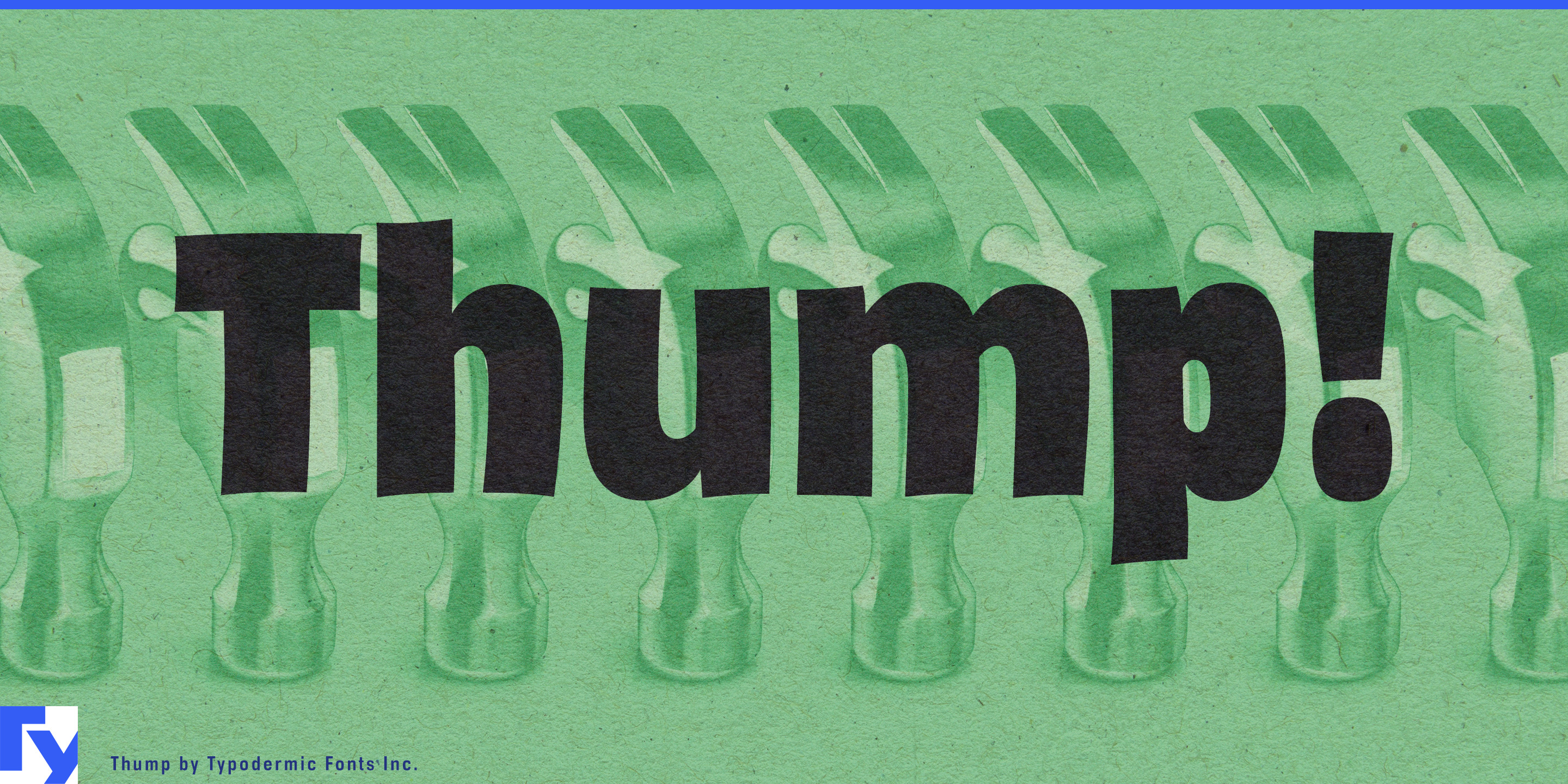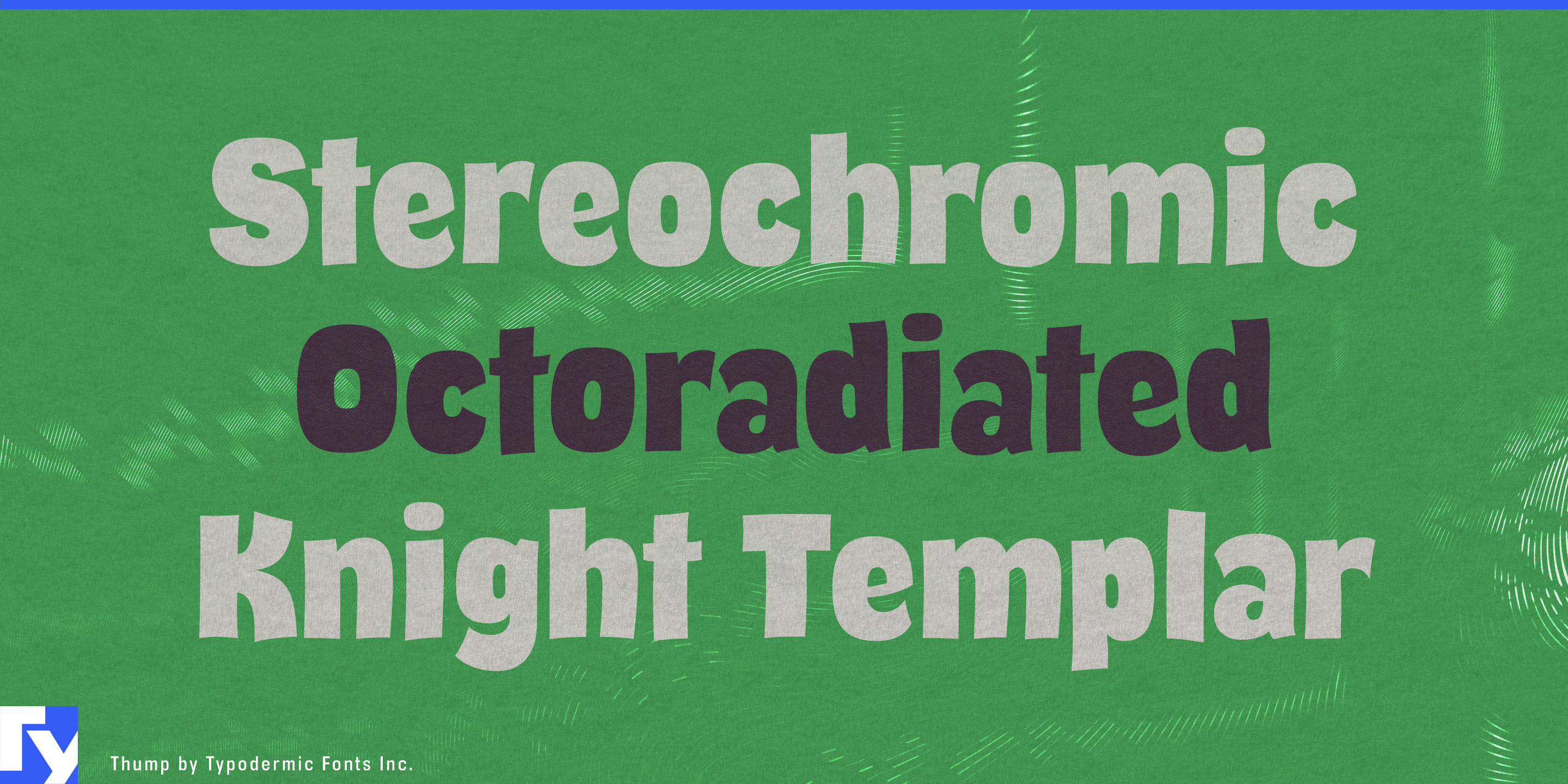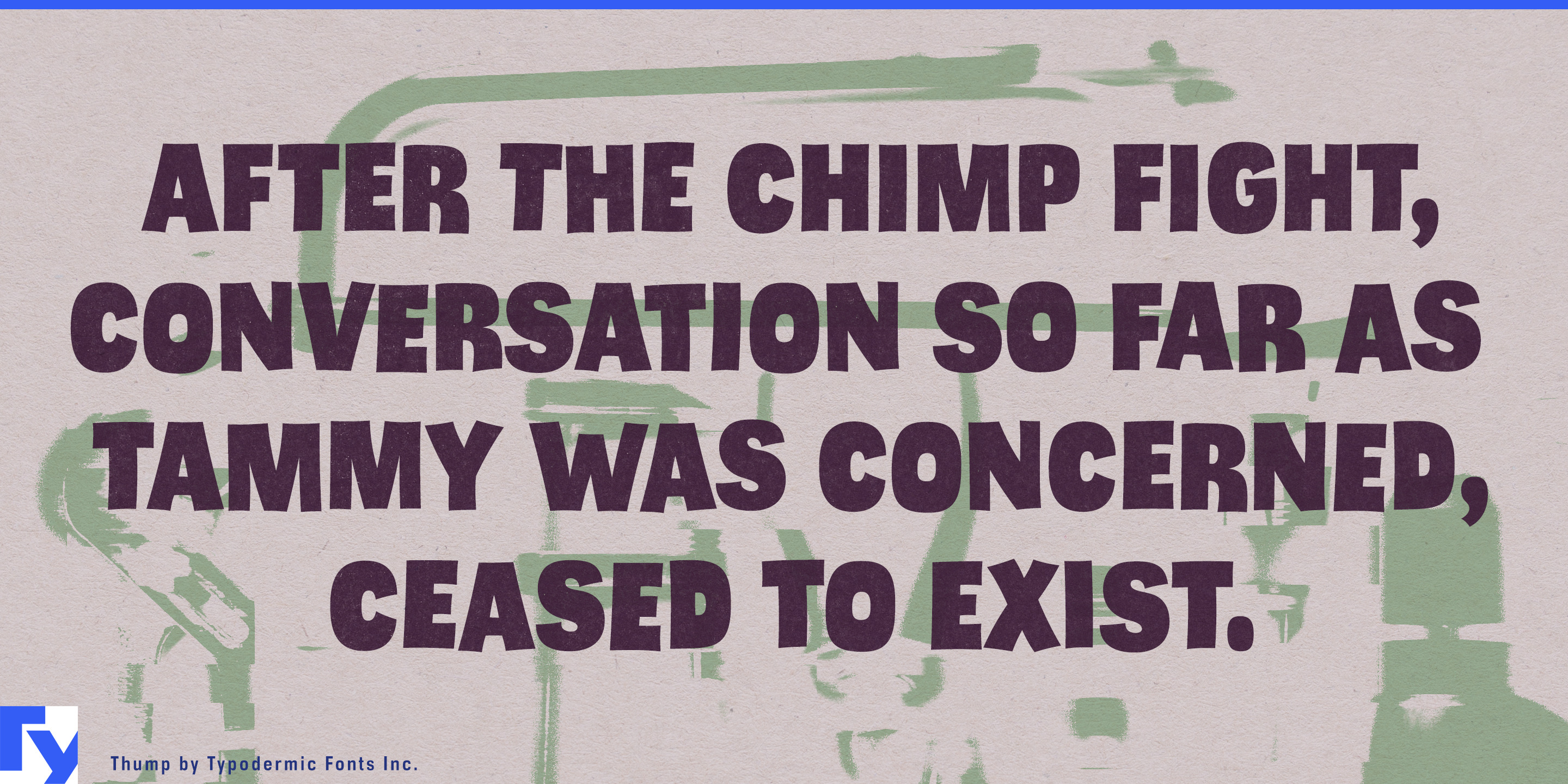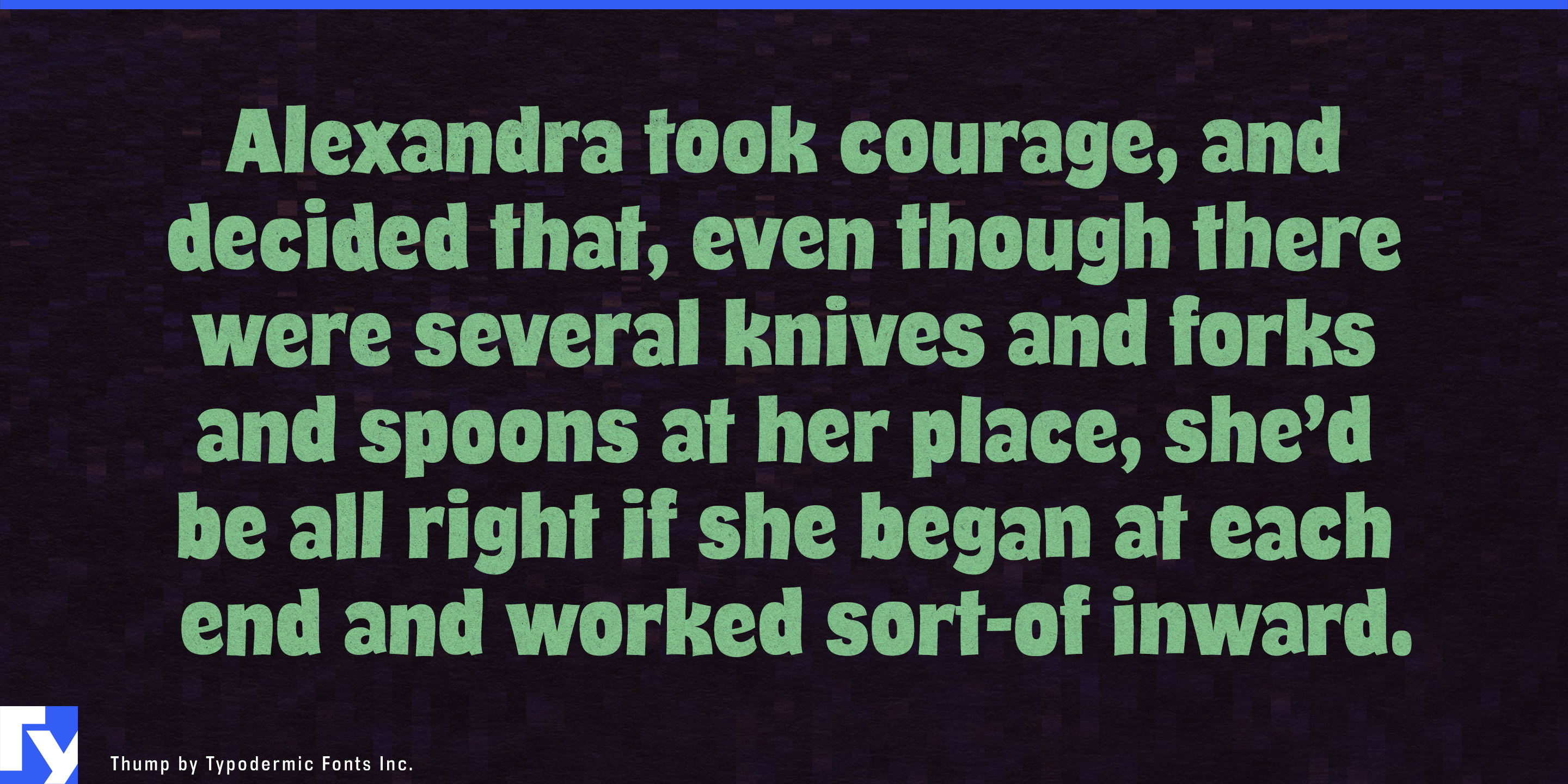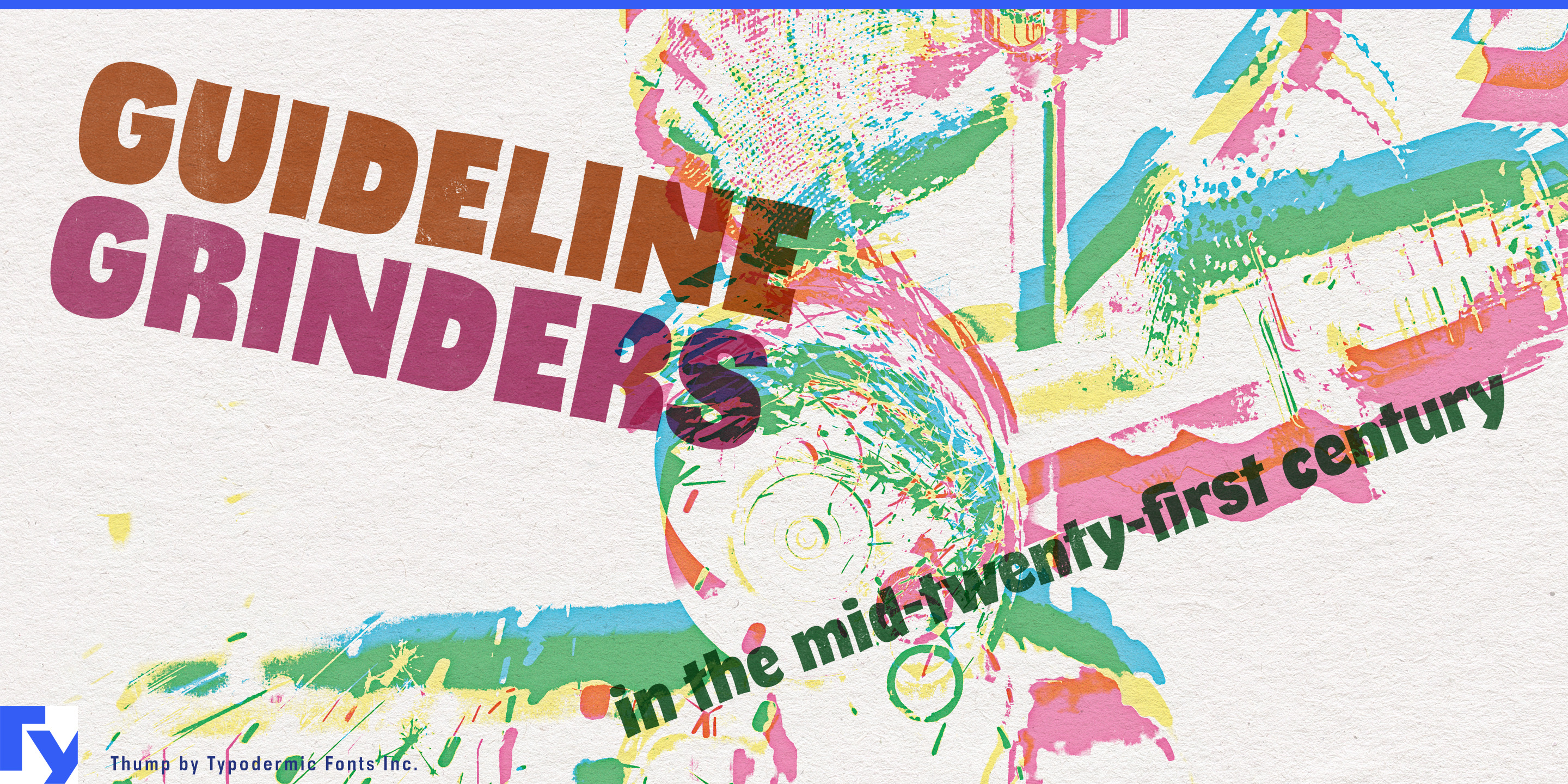
Thump
Some jobs need display type to hit hard without looking aggressive. Family entertainment centers, toy companies, casual games, and pet brands often need the visual force of sports or action lettering, but sharp corners and militarized styling can make the result feel too hostile. Thump solves that problem with cartoon muscle: heavy, compact forms with enough wobble and softness to suggest impact, collision, and movement while keeping the mood playful.
Thump is especially useful for indoor action-entertainment chains. Karting centers, trampoline parks, ninja-course venues, bowling-and-arcade complexes, inflatable parks, and multi-attraction family centers constantly generate names for tracks, zones, challenges, tournaments, party packages, and seasonal events. Thump can carry attraction signs, score screens, leaderboard headings, wristbands, staff shirts, promotional banners, and mobile campaign graphics. Its compact vertical proportions help large words fit into shallow signs and stacked screen layouts without losing their weight.
Karting and arcade racing provide an even more direct fit. Lap counters, race modes, track names, player identifiers, start sequences, position graphics, championship titles, achievement messages, and results screens all need typography that feels fast and physical without borrowing the seriousness of professional motorsport. Thump belongs to the kind of racing where somebody spins out, hits the barrier, and immediately wants another turn.
Stunt and action toys create the same problem on a crowded retail shelf. Remote-control stunt cars, looping track systems, monster-truck playsets, crash toys, foam rockets, water toys, and obstacle-course sets need enormous display lettering without looking threatening. Thump can handle vehicle names, stunt names, track modules, accessory packs, challenge cards, feature callouts, retailer displays, and instruction headings.
Dog products offer a surprisingly natural extension. Durable chew toys, tug products, balls, pet treats, subscription boxes, and canine activity centers sell through physical verbs: chew, tug, fetch, bounce, crunch, and chomp. Thump has enough mass to suggest durability while remaining cheerful enough for product names, size variants, hanging cards, treat bags, subscription cartons, ecommerce graphics, and store displays.
Cartoon-action games, party games, kart racers, humorous sports titles, slapstick platformers, and obstacle-course games can use Thump beyond the logo. Player names, stage titles, challenge labels, power-ups, countdowns, achievement messages, score multipliers, victory screens, and short instructions benefit from a display face that remains readable once the interface asks it to handle more than three words.
Thump is built for things that crash, bounce, jump, race, chew, spin, and occasionally go thud. Its job is to make action feel big without making it mean.